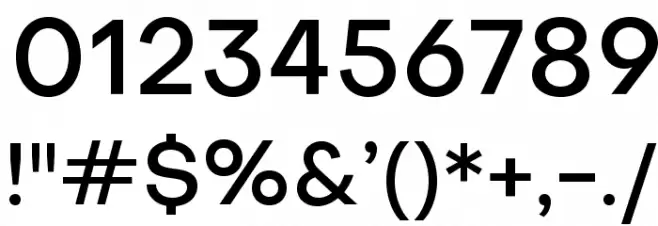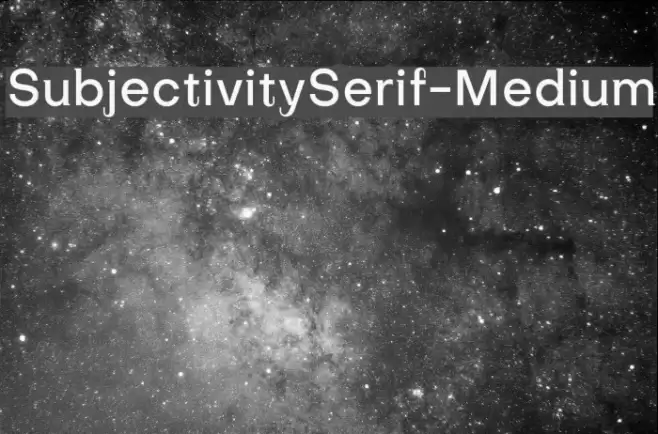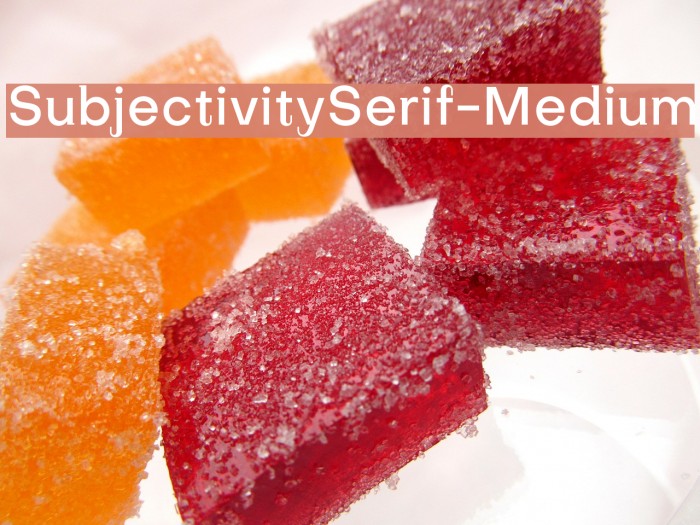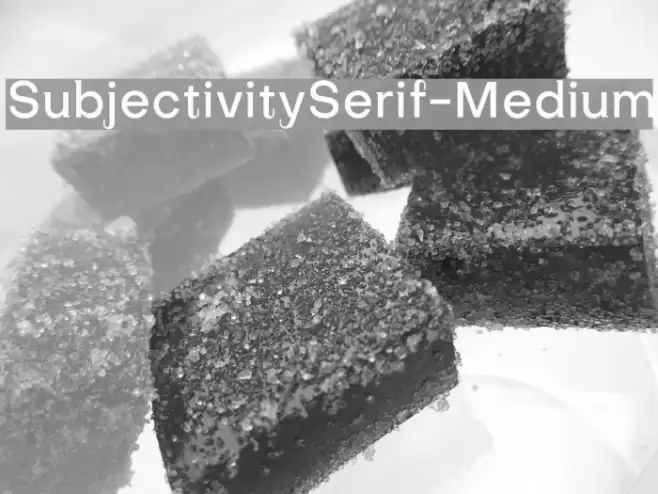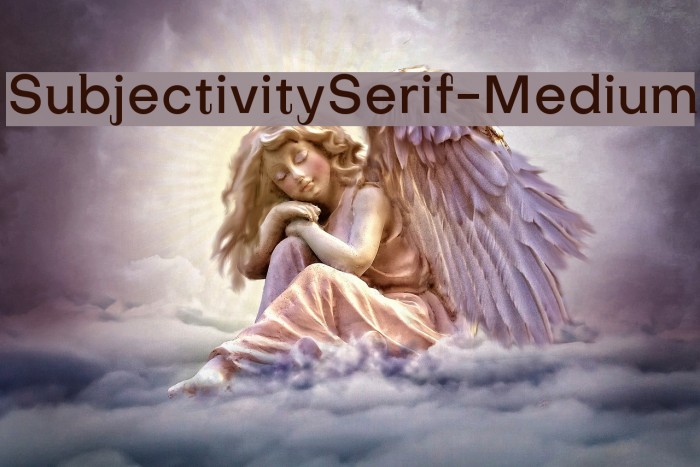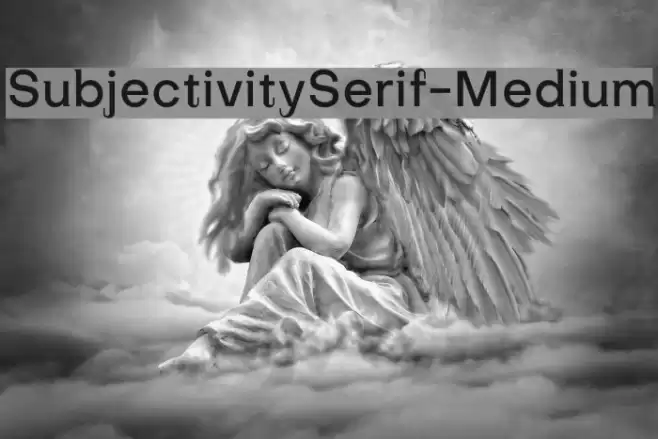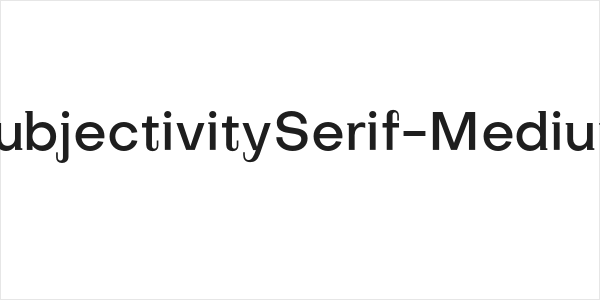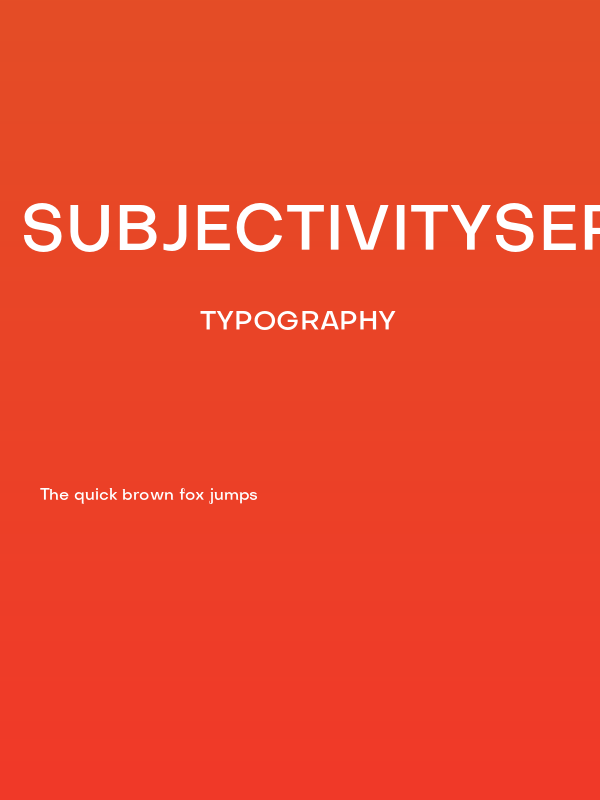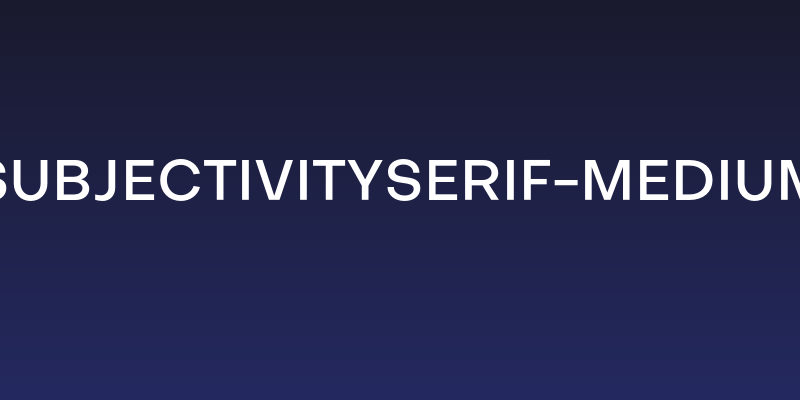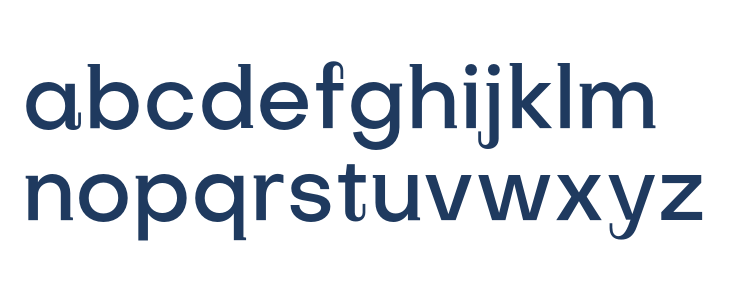
SubjectivitySerif-Medium Font
SubjectivitySerif-Medium Description
This font features a clean and modern sans-serif design with a medium weight, offering a balanced and professional appearance. The characters are well-proportioned with a consistent stroke width, providing a harmonious and legible text. The uppercase and lowercase letters are distinct, with rounded edges that soften the overall look. The numerals are clear and easy to read, making them suitable for various applications. The special characters are designed to match the overall aesthetic, ensuring a cohesive look across different uses.